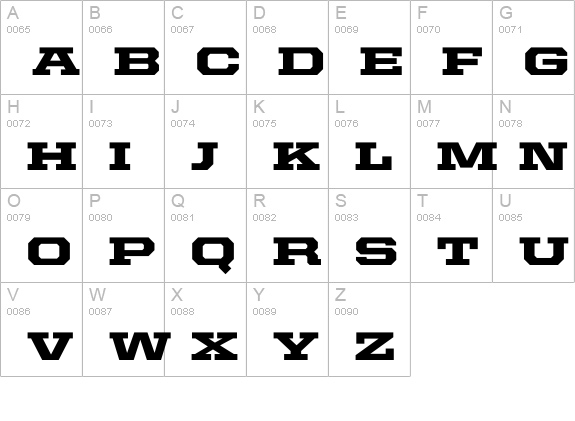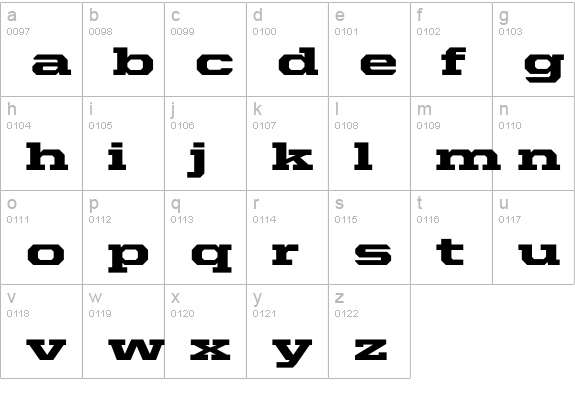
United Serif Ext Black Font Details
United Serif Ext Black is a maximum-weight, dramatic variant in the United typeface family \xE2\x80\x94 well suited to maximum-impact headlines, posters, and packaging.
United Serif Ext Black is a stunning and powerful font that exudes confidence and elegance. Its bold and impactful design makes it perfect for headlines, titles, and other attention-grabbing elements in both print and digital designs. With its strong and commanding presence, United Serif Ext Black demands attention and effortlessly captures the viewer's gaze. Its thick and robust strokes create a sense of authority and make a bold statement, while still maintaining a touch of sophistication and refinement. This versatile font is not only visually striking, but it also offers excellent readability, ensuring that your message is conveyed with clarity and impact. The well-defined letterforms and generous spacing make United Serif Ext Black a highly legible choice, even at smaller sizes. What sets United Serif Ext Black apart is that it is freely available to download at FontsMarket.com. This means that you can easily access and incorporate this exceptional font into your design projects without any restrictions or limitations. Whether you're a professional designer or a casual enthusiast, the availability of United Serif Ext Black for free allows you to elevate your designs to a whole new level, without breaking the bank. Download United Serif Ext Black today from FontsMarket.com and unlock the potential to create visually stunning and captivating designs that leave a lasting impression. With its commanding presence and timeless elegance, this font is sure to make your projects stand out from the crowd. Don't miss out on the opportunity to harness the power of United Serif Ext Black and take your design endeavors to new heights.